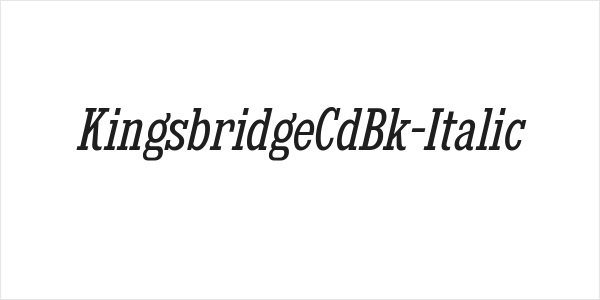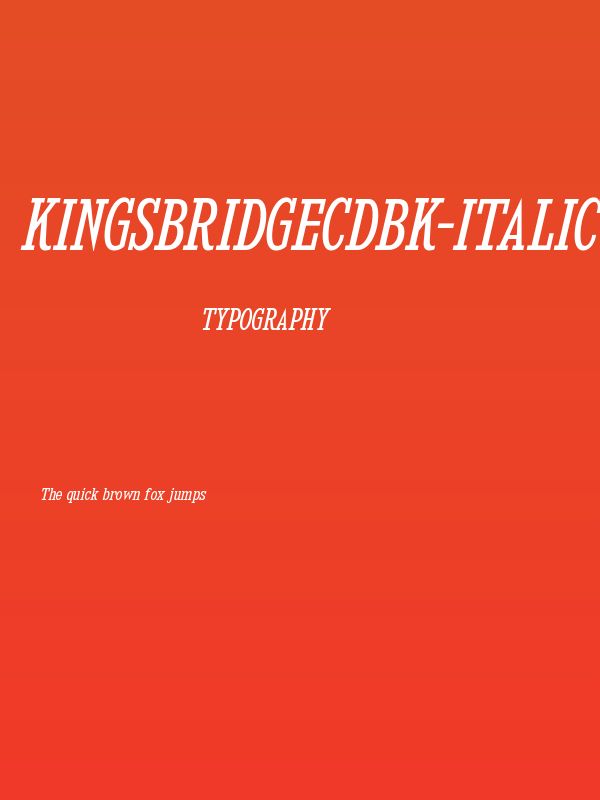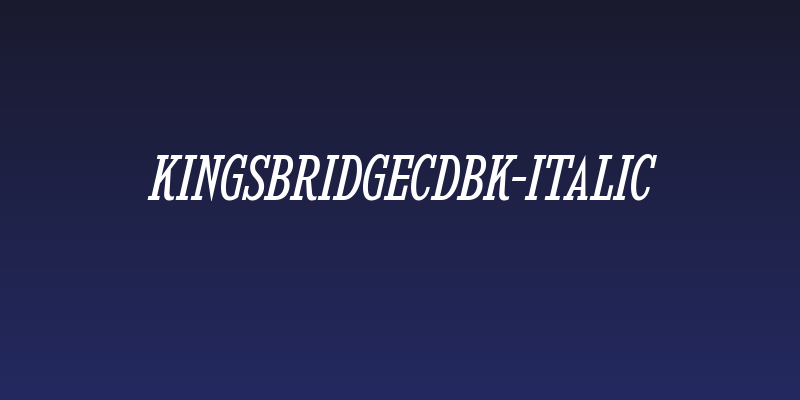
KingsbridgeCdBk-Italic Font
KingsbridgeCdBk-Italic Description
This font exhibits a classic serif style with a distinct italic slant, providing a sense of elegance and sophistication. The characters are well-defined with moderate contrast between thick and thin strokes, enhancing readability while maintaining a stylish appearance. The uppercase letters are tall and commanding, while the lowercase letters are more compact, offering a balanced visual appeal. The numerals are clear and consistent, making them suitable for various applications. Special characters are included, adding versatility to the font's use. Overall, this font combines traditional serif elements with a modern twist, making it suitable for a wide range of design projects.
| Proposed Projects | Ideal for editorial design, book covers, formal invitations, and branding materials. |